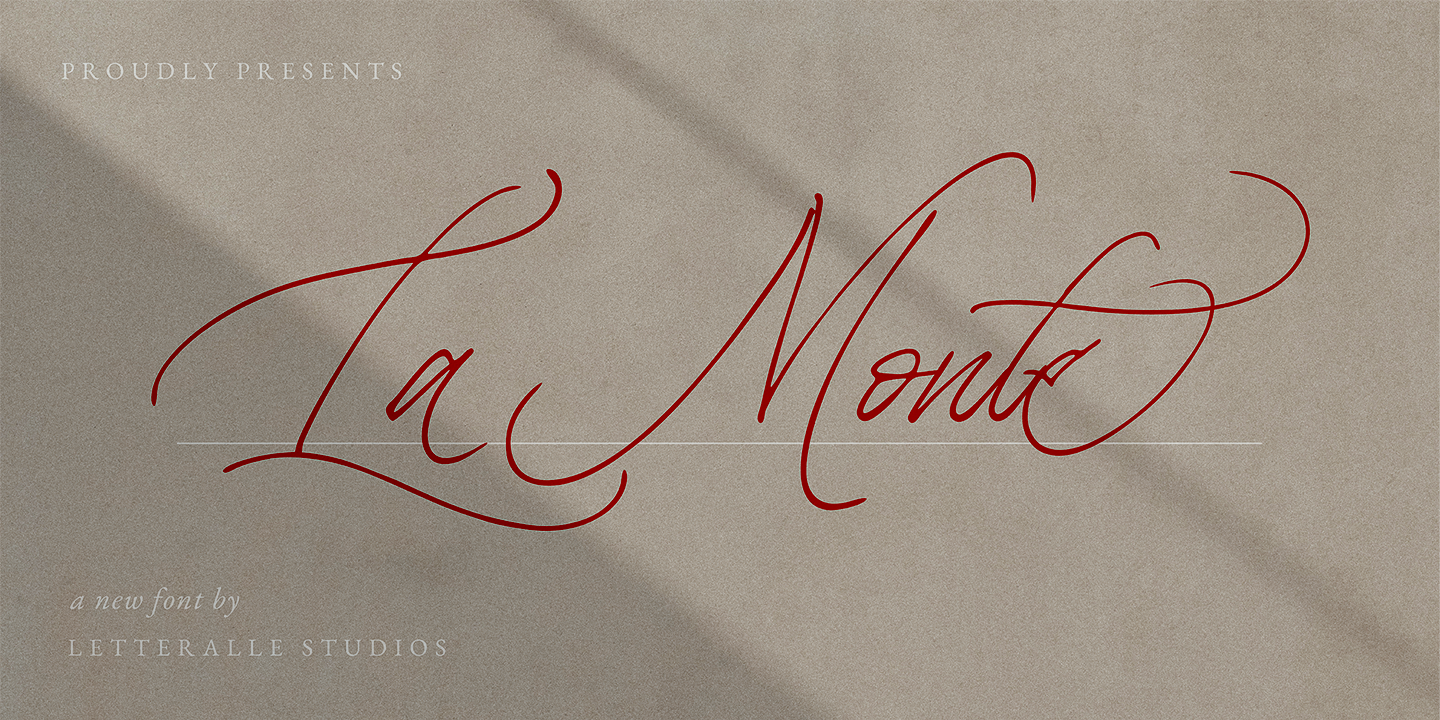
La Monte Font is an exquisitely elegant script typeface that embodies a timeless sense of luxury and sophisticated charm. It's perfectly suited for projects that demand a refined, artistic, and exclusive touch, such as high-end fashion branding, bespoke wedding invitations, upscale restaurant menus, and prestigious editorial designs. Imagine La Monte Font gracing the logo of a luxury boutique, adding a delicate flourish to an exclusive event invitation, or providing a sophisticated and personal feel to a high-end product's packaging. Its flowing lines and graceful connections ensure your message is conveyed with both warmth and an undeniable sense of artistic refinement, making it ideal for designs that aim for a classic yet contemporary appeal.
What makes La Monte Font truly exciting is its remarkable balance of calligraphic beauty and digital precision. It offers the charming irregularities of authentic handwriting without sacrificing clarity, making it versatile for both display and smaller text applications. Each character is thoughtfully designed to flow seamlessly, creating a natural and harmonious rhythm across words. It’s more than just a typeface; it’s an artistic statement that enhances visual storytelling, adding a layer of sophistication and emotional connection to your content. La Monte Font stands out for its elegant versatility and its capacity to elevate any design with its graceful and impactful presence.
La Monte Font typically comes with a comprehensive set of characters that enhance its versatility, including a standard array of uppercase and lowercase letters, numbers, and basic punctuation. It often features stylistic alternates, ligatures, and swashes that allow designers to customize the look and feel of their text, creating unique combinations and a truly bespoke appearance. While it might primarily function as a single weight script, the rich stylistic options within La Monte Font Free Download ensure endless creative possibilities. This makes it a powerful tool for crafting unique headlines, personal branding elements, and short text passages where a strong, elegant, and personalized aesthetic is desired.